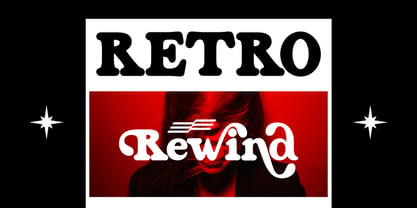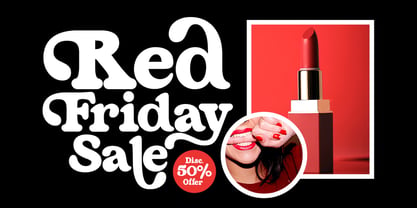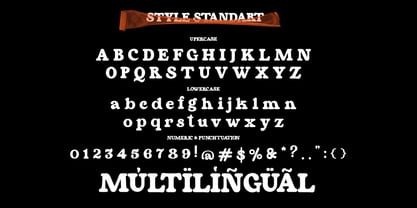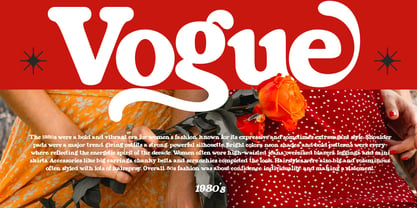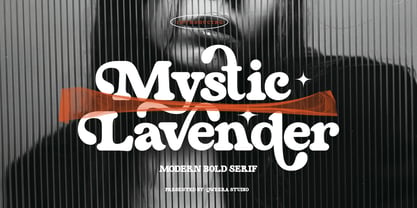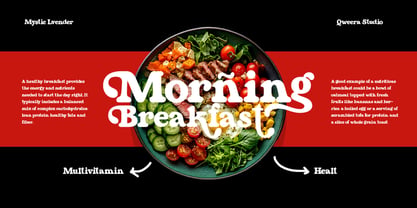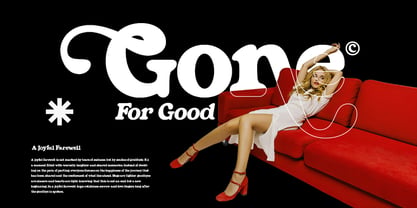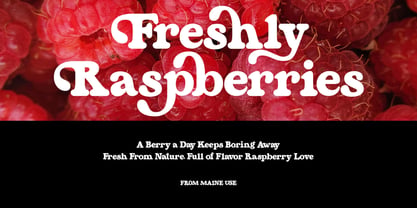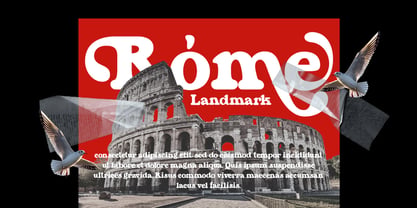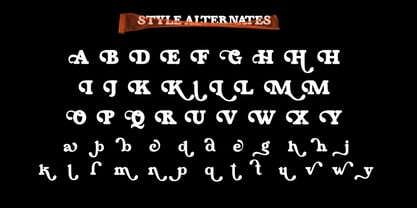
Mystic Lavender
The Mystic Lavender Font Family was designed by Idhham Cholid Rikzano Yahya and published by Qweera Studio. Mystic Lavender contains 2 styles and family package options. More about this family
Mystic Lavender - Bold Elegant Display Serif Font for Luxurious Branding
Mystic Lavender is a captivating display serif that masterfully combines bold sophistication with enchanting elegance. Featuring both regular and italic versions with exquisite stylistic alternates and ligatures, this typeface is meticulously crafted for premium branding, high-end logos, luxury packaging, and editorial designs that demand both presence and refinement.
Where Bold Sophistication Meets Enchanting Elegance
With its striking serif structure and graceful italic variation, Mystic Lavender delivers exceptional versatility for brands seeking both authority and allure. The carefully designed alternates and ligatures allow for mesmerizing typographic compositions that command attention while maintaining refined beauty.
Premium Features Include:
• Bold Display Serif – Powerful letterforms with elegant proportions
• Dual Style Versions – Regular & italic for dynamic visual impact
• Stylistic Alternates – 30+ unique glyph variations
• Enchanting Ligatures – Seamless character connections
• Universal Application – From perfume packaging to magazine covers
• Extended Latin Support – Comprehensive character set
• Luxury beauty branding
• High-end fashion labels
• Premium cosmetic packaging
• Editorial headline typography
• Sophisticated event branding